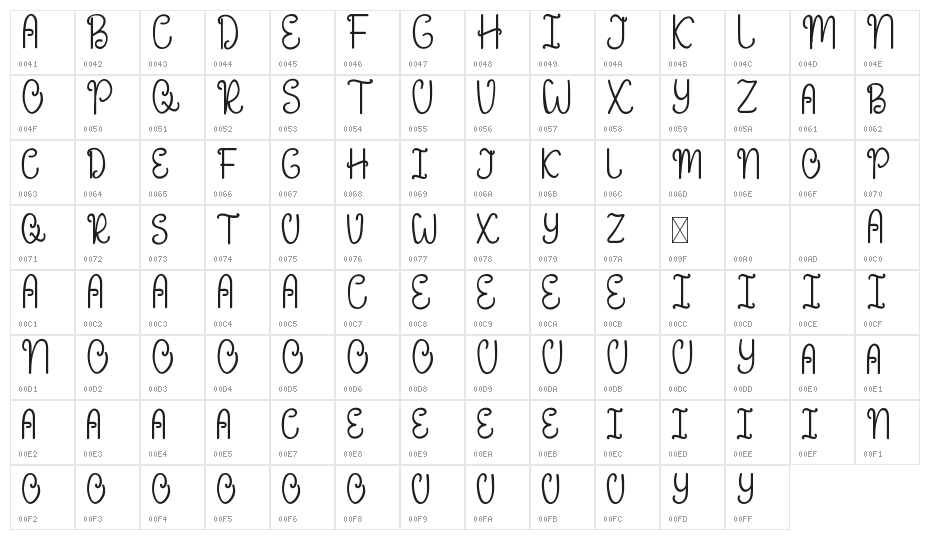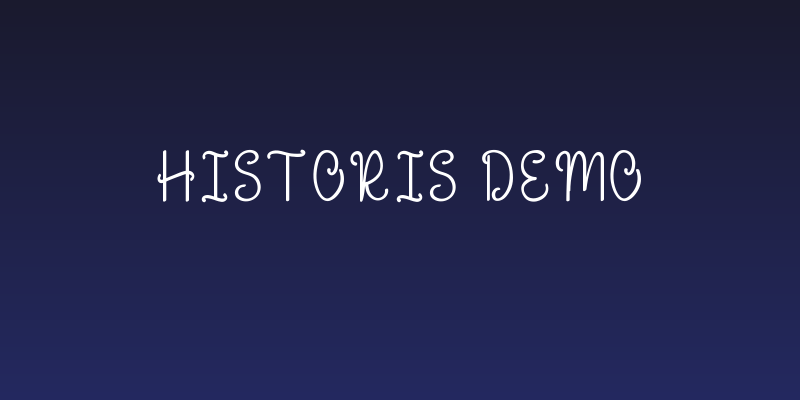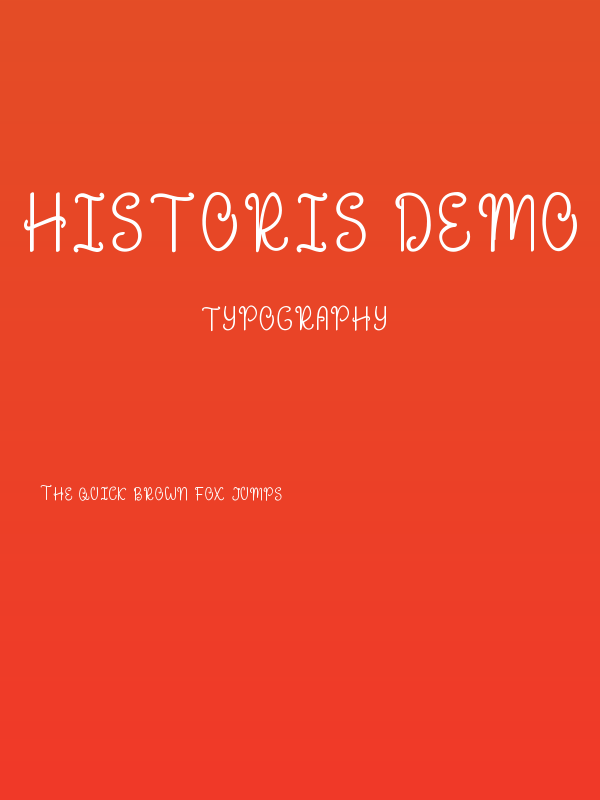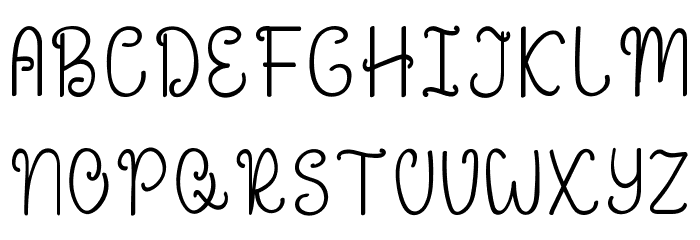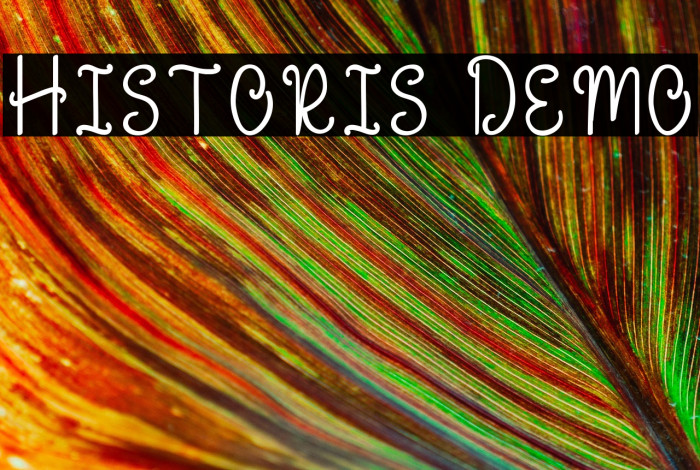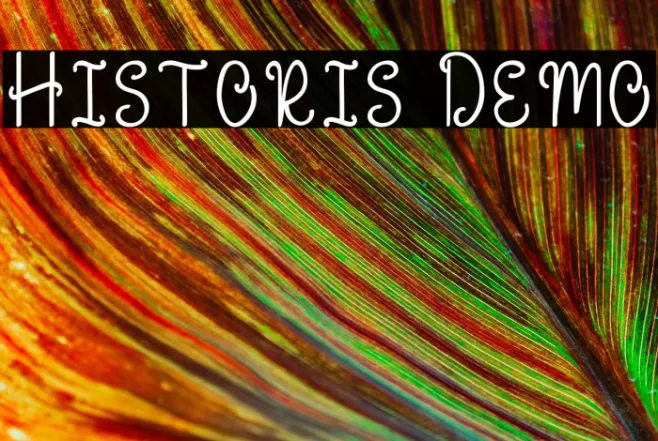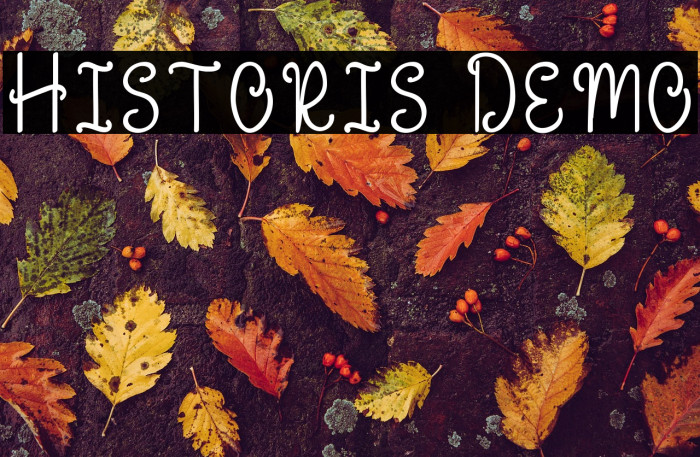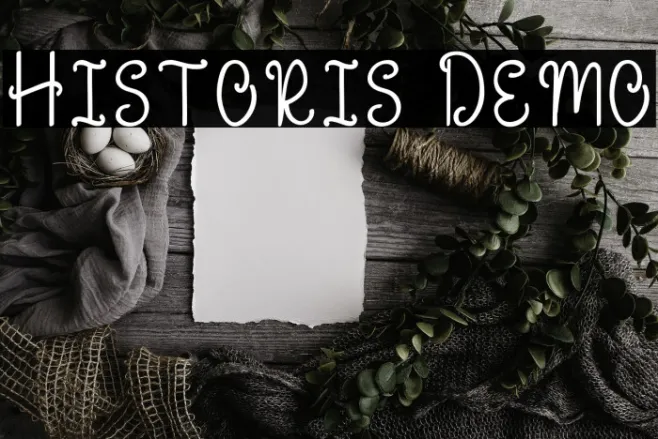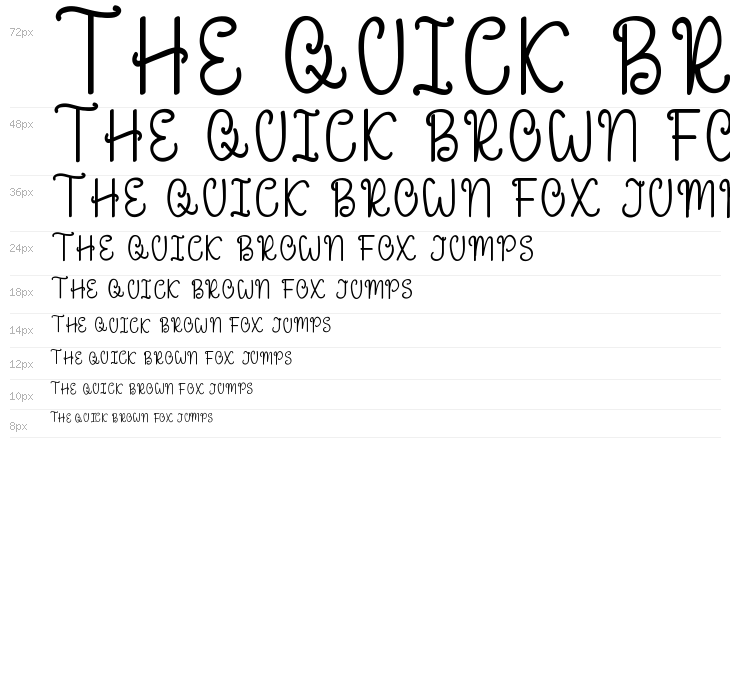
Historis Demo Font
Historis Demo Description
This font features a playful and whimsical design, characterized by its flowing, cursive-like strokes and rounded edges. Each letter is crafted with a sense of movement, giving it a lively and dynamic appearance. The uppercase letters maintain a consistent height, while the lowercase letters exhibit a charming looped style, adding to the overall playful aesthetic. The numbers and special characters are designed to match the whimsical nature of the alphabet, ensuring a cohesive look across all characters. This font is ideal for projects that require a touch of fun and creativity, such as children's books, playful branding, or artistic invitations.
| Proposed Projects | Children's books, playful branding, artistic invitations, greeting cards, and creative posters. |